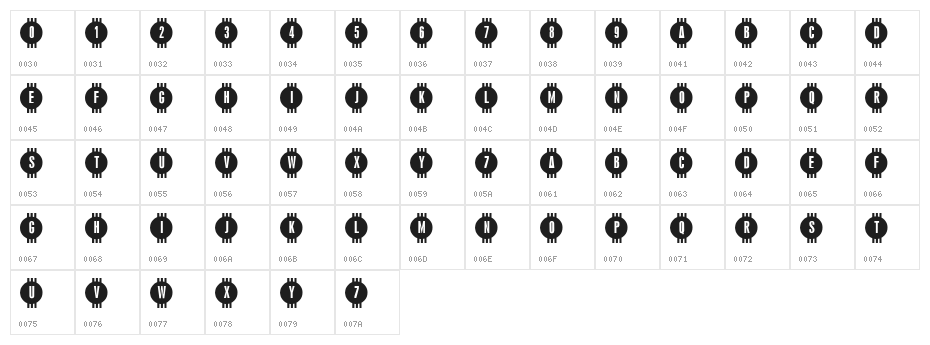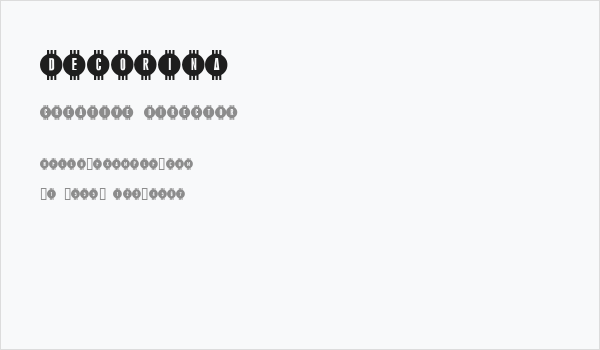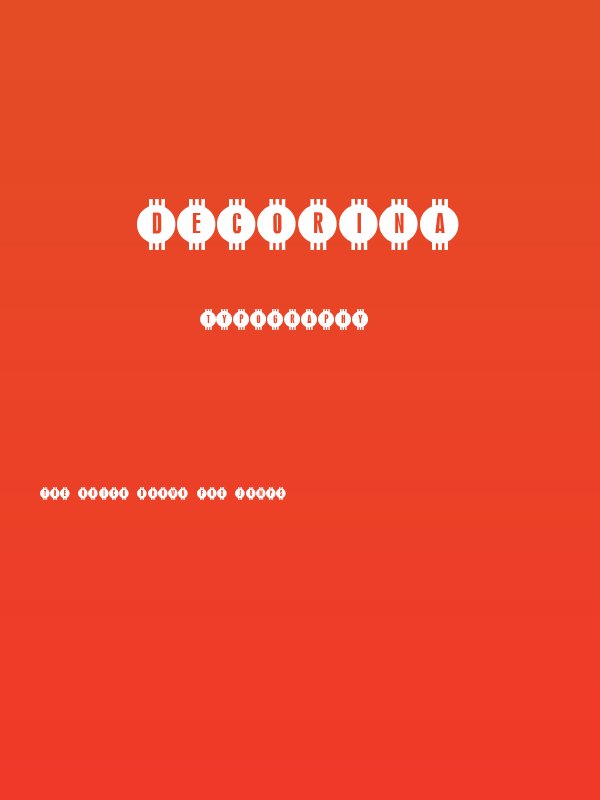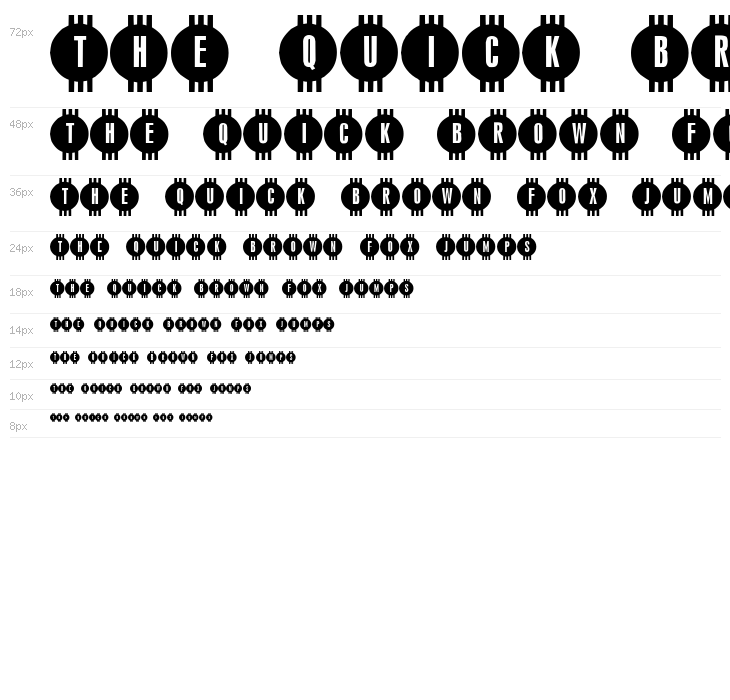
Decorina Font
Decorina Description
This font features a unique and bold design where each character is enclosed within a circular shape, resembling a coin or token. The letters and numbers are centered within these circles, creating a striking visual impact. The characters are uppercase and have a consistent weight, contributing to a uniform appearance. The special characters are also enclosed in circles, maintaining the overall theme. This font's distinct style makes it ideal for projects that require a strong and memorable visual identity.
| Use Case | Logos, Posters, Branding |
| Proposed Projects | Perfect for branding, logos, posters, and any design requiring a bold statement. |